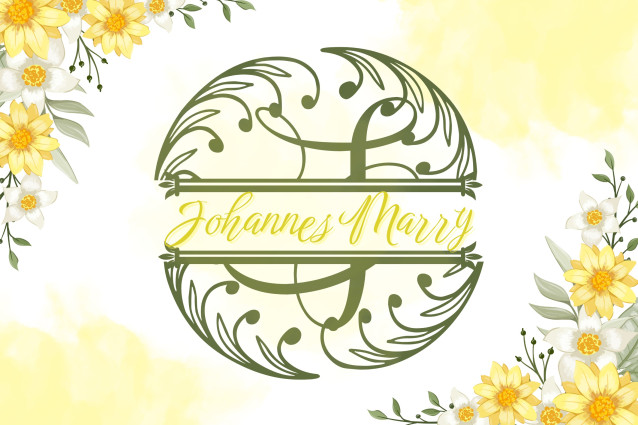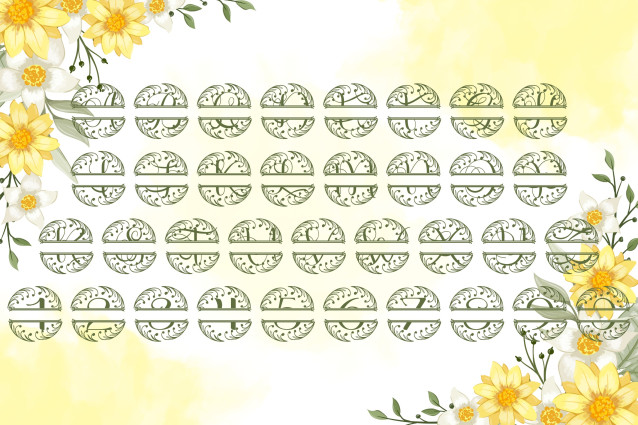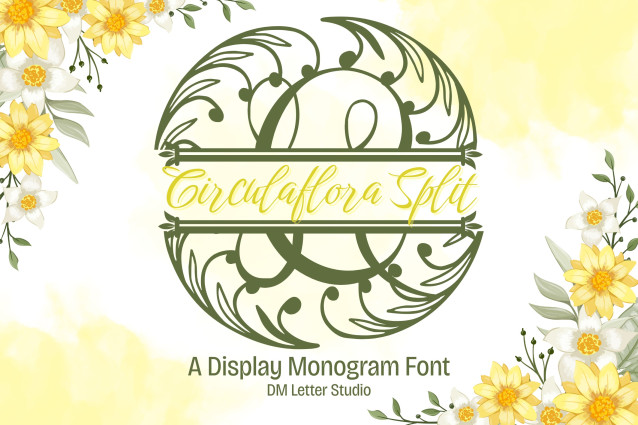
Circulaflora Split Monogram Font
Circulaflora Split Monogram Font is a clean and elegant split-letter font with each uppercase character nestled inside a refined floral ring. Designed with a centered gap for personalization, this monogram font blends modern minimalism and botanical charm. Whether you’re designing wedding signage, personalized gifts, or branded packaging, Circulaflora Split Monogram delivers both beauty and function.